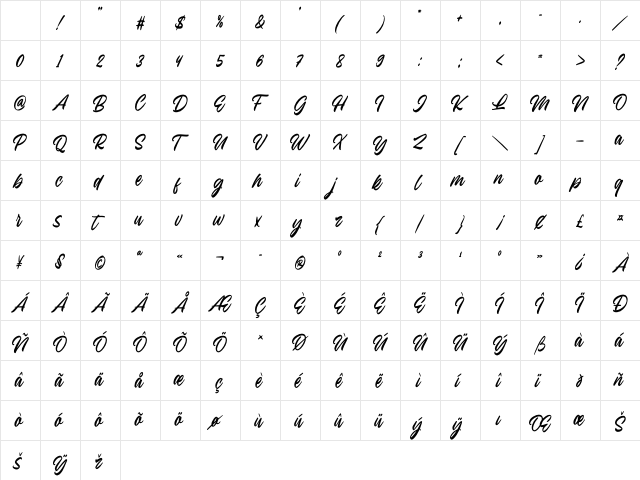
Complete Brilliant Youth Regular glyph index. Displaying only characters natively supported by Brilliant Youth Regular font.
Brilliant Youth is a composed and adaptable typeface that performs quietly and consistently across a wide range of design contexts.